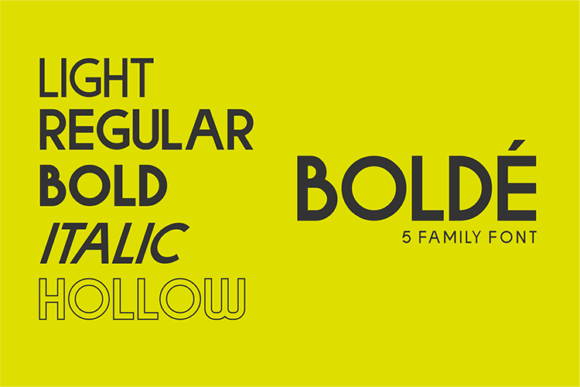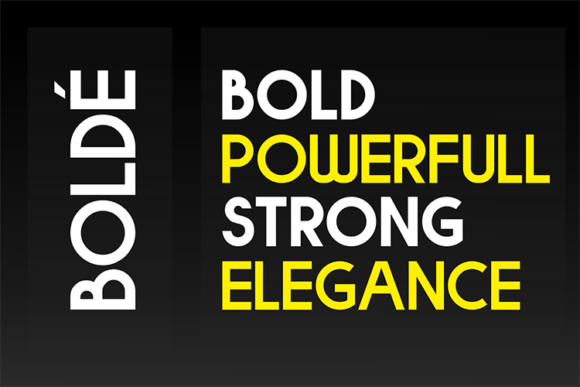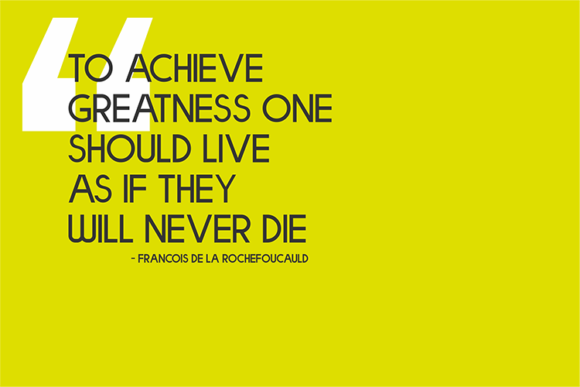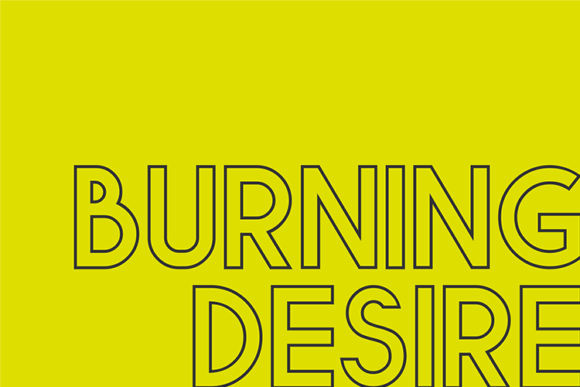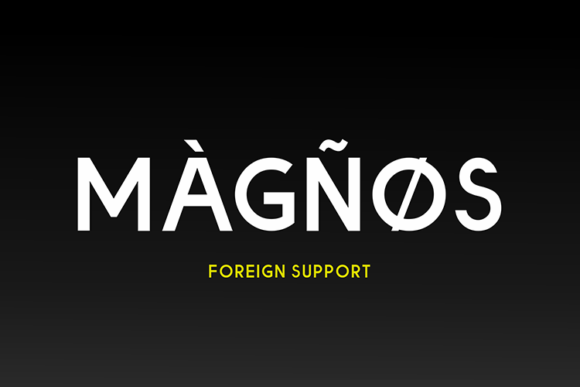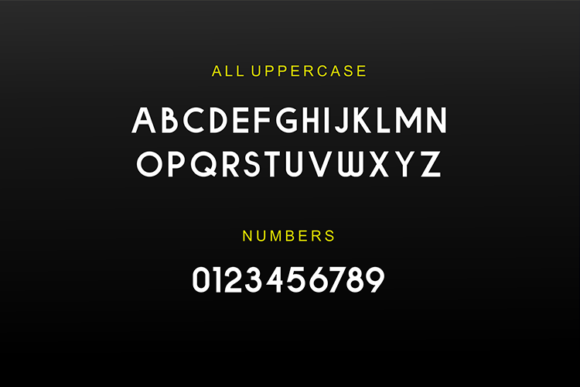
Introducing Bolde Font: A Powerful Sans Serif Font Family
In the world of typography, fonts play a crucial role in conveying messages, expressing emotions, and creating visual identities. For designers and crafters, finding the right font can make all the difference in their creative projects. One font that has been making waves in the design community is Bolde, a powerful sans serif font family with modern touches.
The Balance of Hard Lines and Smooth Curves
The Bolde font family is characterized by its unique balance of hard lines and smooth curves. This distinctive feature allows it to stand on its own dynamically, making it perfect for a wide range of design applications. Whether you’re working on a logo, brochure, or website, Bolde’s versatility ensures that it can adapt to any style or theme.
Key Features of Bolde Font
- Modern Touch: Bolde’s design is inspired by modern typography, giving it a fresh and contemporary feel.
- Sans Serif: The font’s sans serif design makes it clean, simple, and highly legible.
- Dynamic: Bolde’s balance of hard lines and smooth curves allows it to be used in a variety of design contexts.
- Versatile: The font family includes multiple weights and styles, making it suitable for headlines, body text, and more.
Use Cases for Bolde Font
Bolde’s versatility makes it an excellent choice for various design projects, including:
- Branding and Logo Design: Bolde’s modern and dynamic design makes it perfect for creating logos and brand identities.
- Print Design: The font’s clean and legible design makes it suitable for brochures, flyers, posters, and other print materials.
- Digital Design: Bolde’s sans serif design and modern touches make it an excellent choice for websites, mobile apps, and digital interfaces.
- Advertising and Marketing: The font’s bold and attention-grabbing design makes it perfect for advertising and marketing materials.
Why Choose Bolde Font?
With so many fonts available, why choose Bolde? Here are a few reasons:
- Unique Design: Bolde’s distinctive balance of hard lines and smooth curves sets it apart from other fonts.
- High Legibility: The font’s clean and simple design ensures high legibility, even at small sizes.
- Flexibility: Bolde’s multiple weights and styles make it suitable for a wide range of design applications.
- Modern and Fresh: The font’s modern design ensures that your designs will look fresh and up-to-date.
In conclusion, Bolde is a powerful sans serif font family that offers a unique blend of modern touches and classic design principles. Its balance of hard lines and smooth curves makes it dynamic and versatile, suitable for a wide range of design applications. Whether you’re a designer or crafter, Bolde is an excellent choice for your next project. With its high legibility, flexibility, and modern design, Bolde is sure to make a statement in your designs.